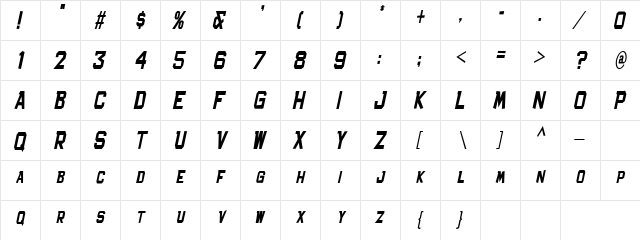
Bachelor Pad Condensed JL Italic Font Preview
Design Context for Bachelor Pad Condensed JL Typeface
Bachelor Pad Condensed JL offers clean, dependable letterforms without strong stylistic allegiance, making it a practical choice for designers who need flexibility. Its italic angle brings a sense of urgency and motion to the letterforms. The condensed width makes it efficient for tight spaces without sacrificing legibility.
Pro Tip: Use Bachelor Pad Condensed JL for emphasis, pull quotes, and subheadings where its slanted energy can add rhythm to the layout.